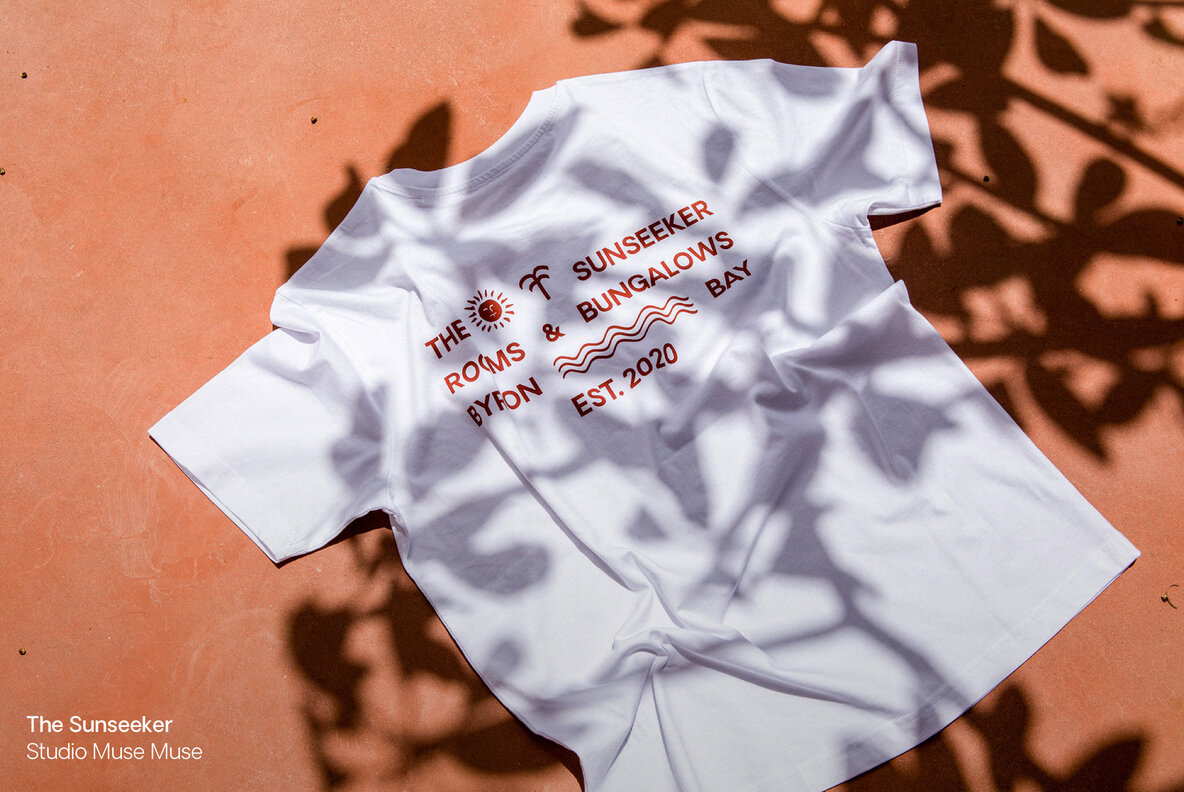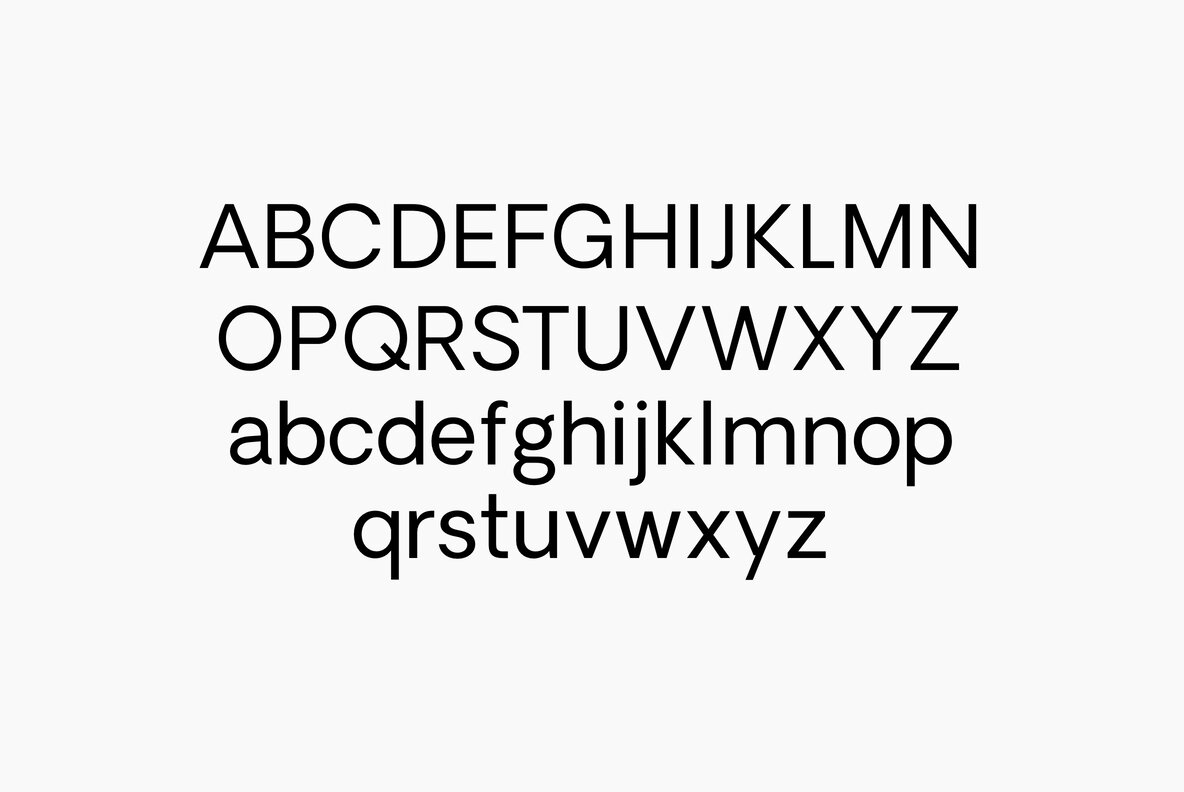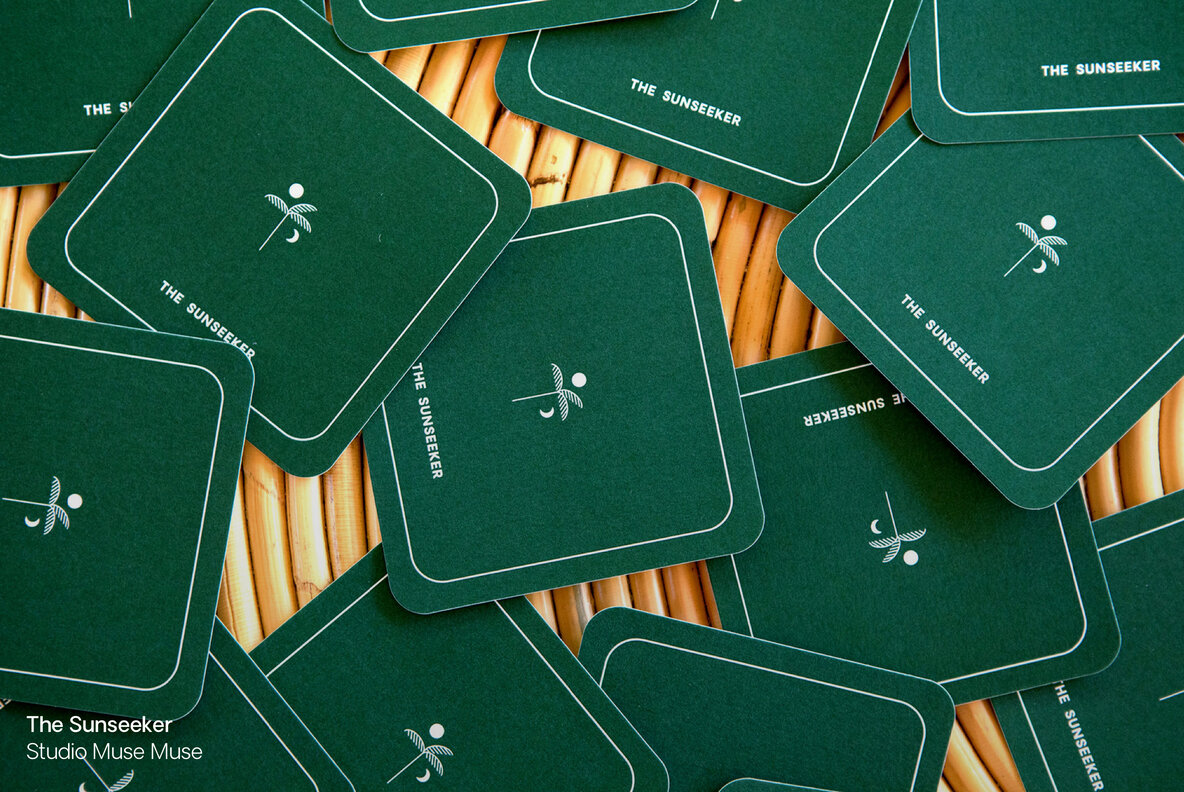
Oakes Grotesk Font
Oakes Grotesk is a more corporate take on the Oakes typeface. It explores a set of brand new metrics that allow it to be more legible in body text as well as headings. The letter 'g' has been tweaked to become double-story as well as the refinement of other characters. This is all whilst maintaining the subtle curves of the Oakes typeface. Languages: Baltic, Basic Latin, Central European, Dutch, Euro, Romanian, Turkish & Western European
- New version of the font, which by default now has the rounded crossbar .